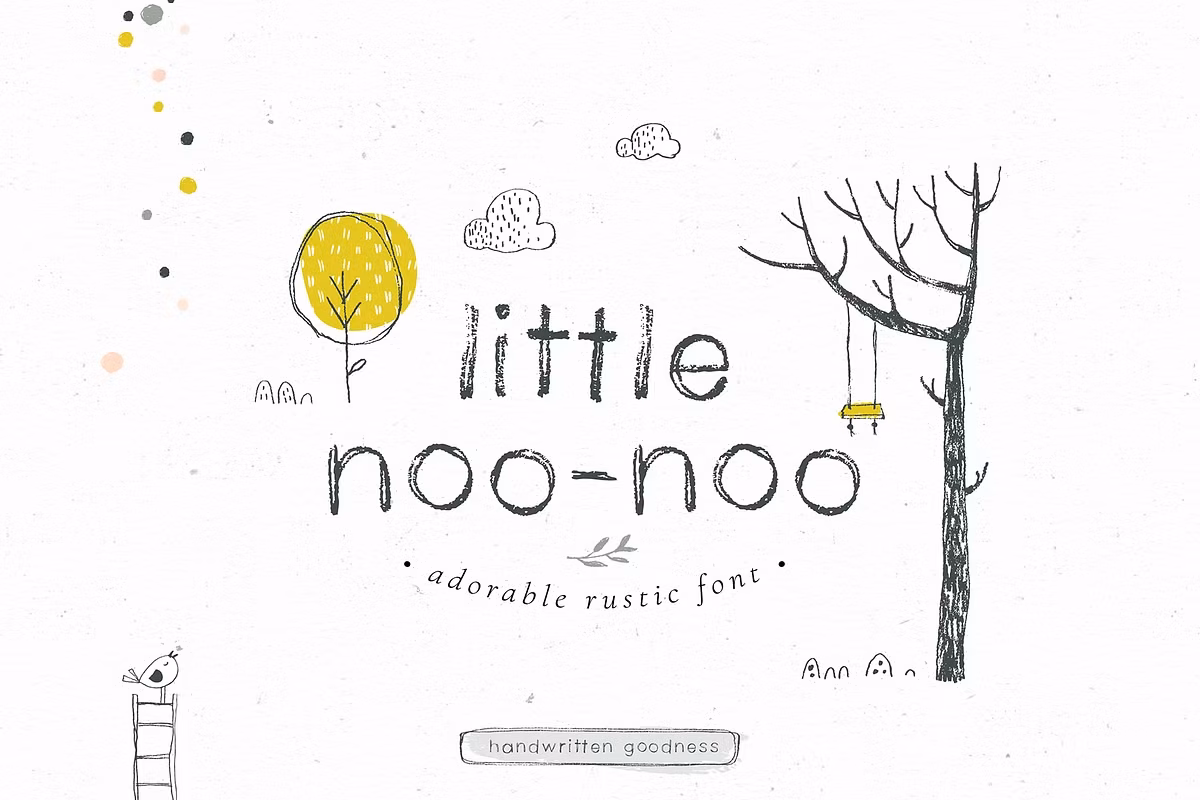
Little Noo-Noo Rustic Font Free Download is a playful and textured typeface that brings warmth, charm, and a handcrafted feel to your designs. With its slightly rough edges and quirky character, this font is perfect for farmhouse-style signage, kids’ projects, DIY crafts, packaging, and cozy branding.
Little Noo-Noo Rustic Font Free Download gives off an organic, homey vibe that feels friendly and inviting. Whether you're creating quote prints, greeting cards, or blog graphics, this font adds a rustic personality that’s full of heart and fun.
Designed to stand out while remaining legible, it works beautifully across both print and digital formats. You’re welcome to test it in mockups or personal projects, but please remember that a commercial license is required for professional use. Add a splash of rustic charm to your next creative adventure with Little Noo-Noo!